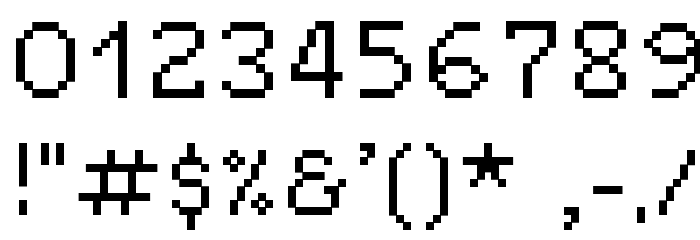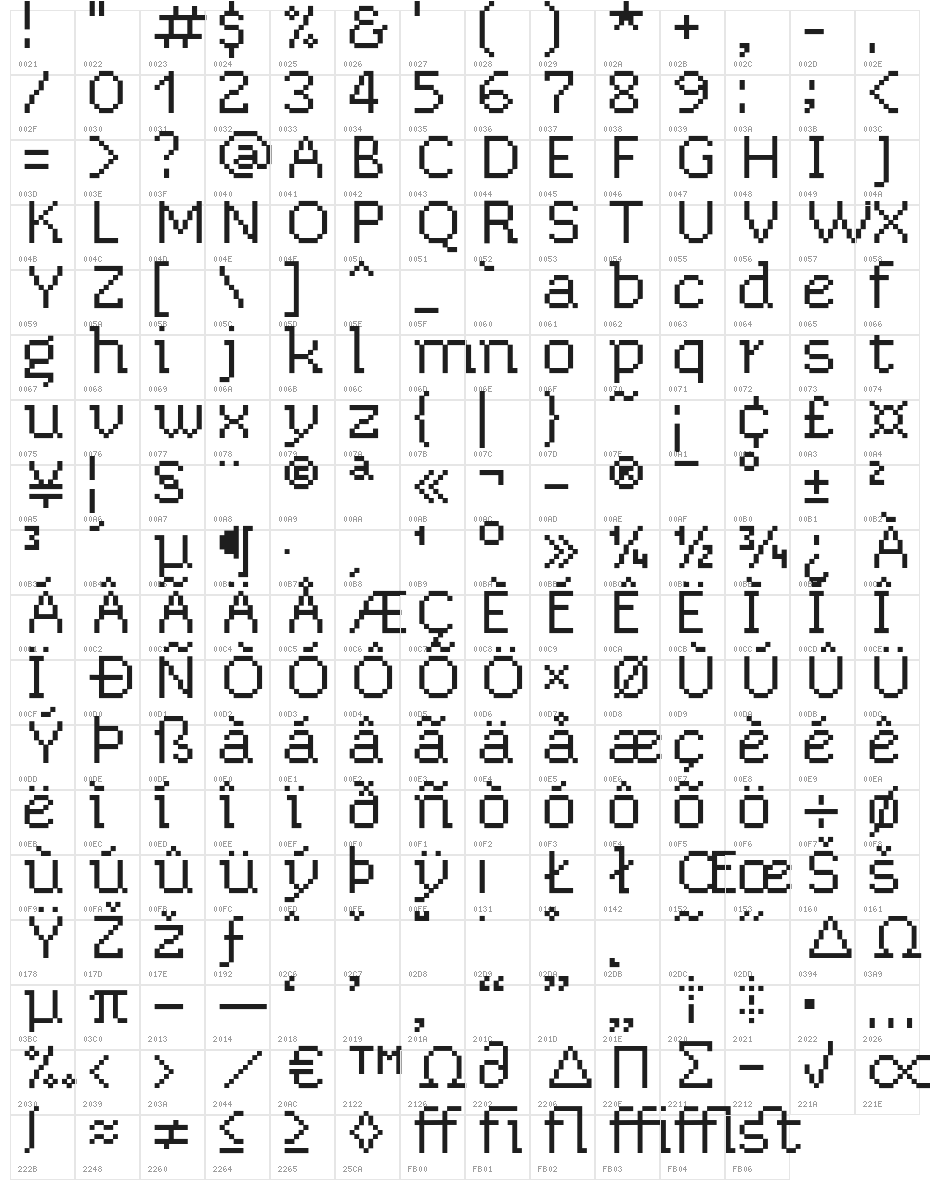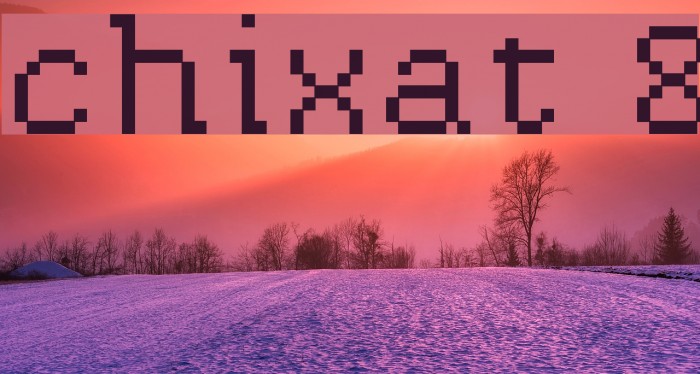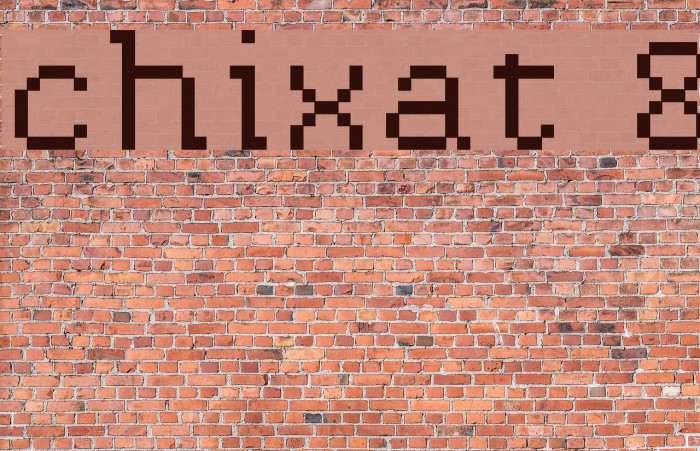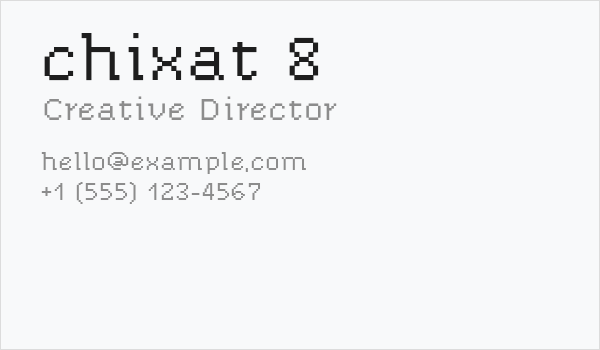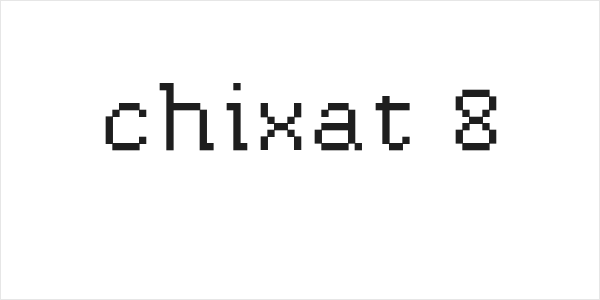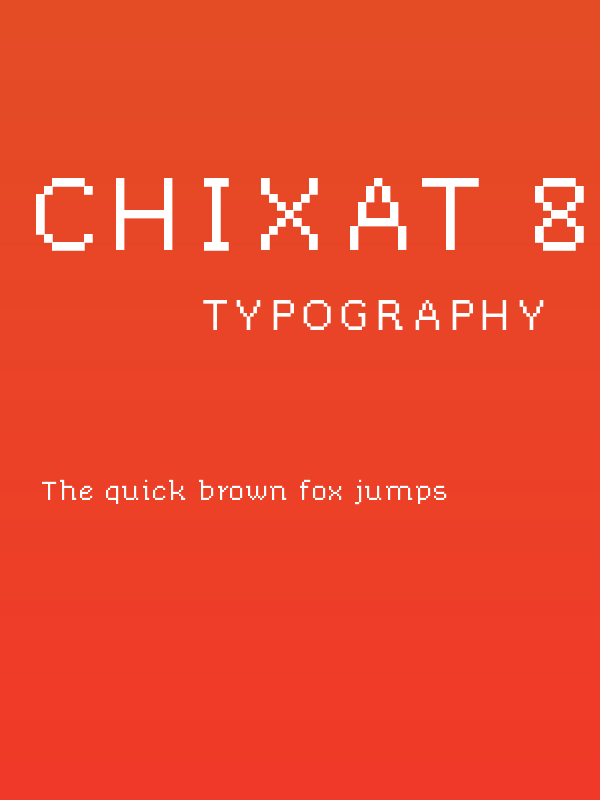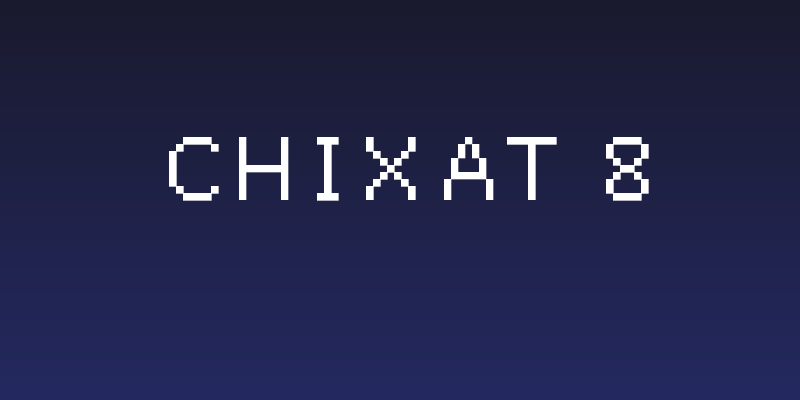
chixat 8 Font
chixat 8 Description
This font features a pixelated, monospaced design that evokes a retro, digital aesthetic reminiscent of early computer screens and video games. Each character is constructed with a uniform grid-like structure, giving it a blocky and geometric appearance. The uppercase and lowercase letters maintain a consistent height and width, contributing to its monospaced nature. The numerals and special characters follow the same pixelated style, ensuring uniformity across all glyphs. This font's simplicity and clarity make it highly legible, even at smaller sizes, while its nostalgic design adds a playful and vintage touch.
| Use Case | Logos, Digital displays, Coding |
| Proposed Projects | Ideal for retro-themed designs, video game graphics, digital art projects, and coding environments. |